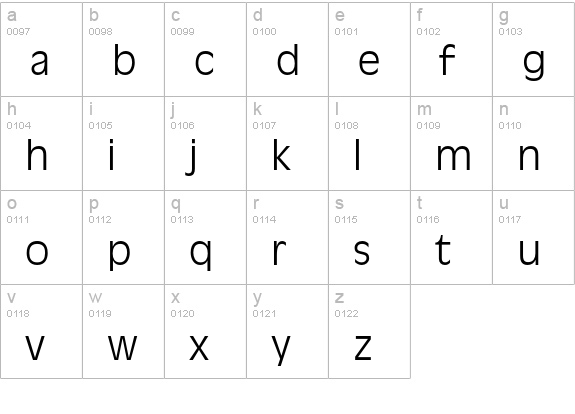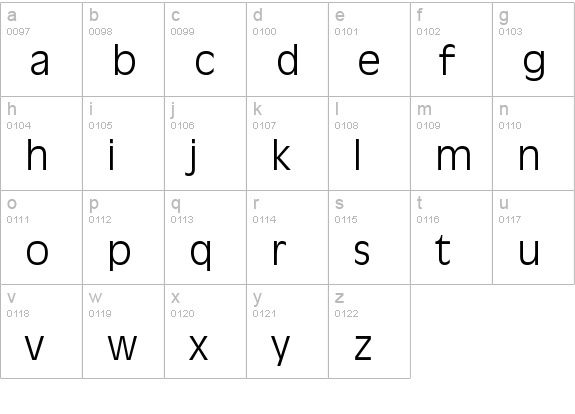
Antique Olive Std Light is a refined, elegant variant in the Antique typeface family \xE2\x80\x94 well suited to elegant body text, refined sub-headings, and luxury branding.
Antique Olive Std Light font is a timeless and elegant typeface that exudes sophistication and classic charm. Its slender and delicate strokes give it a refined appearance that is perfect for adding a touch of class to any design project. The clean lines and subtle curves make it ideal for both headlines and body text, ensuring legibility and readability. This exquisite font is available for free download at FontsMarket.com, making it easily accessible for designers and creators looking to elevate their work with a touch of vintage flair. Whether you're working on a branding project, editorial design, or any other creative endeavor, Antique Olive Std Light font is sure to bring a sense of refinement and grace to your work. Enhance your designs with this beautiful typeface today and let its timeless appeal shine through in your projects.